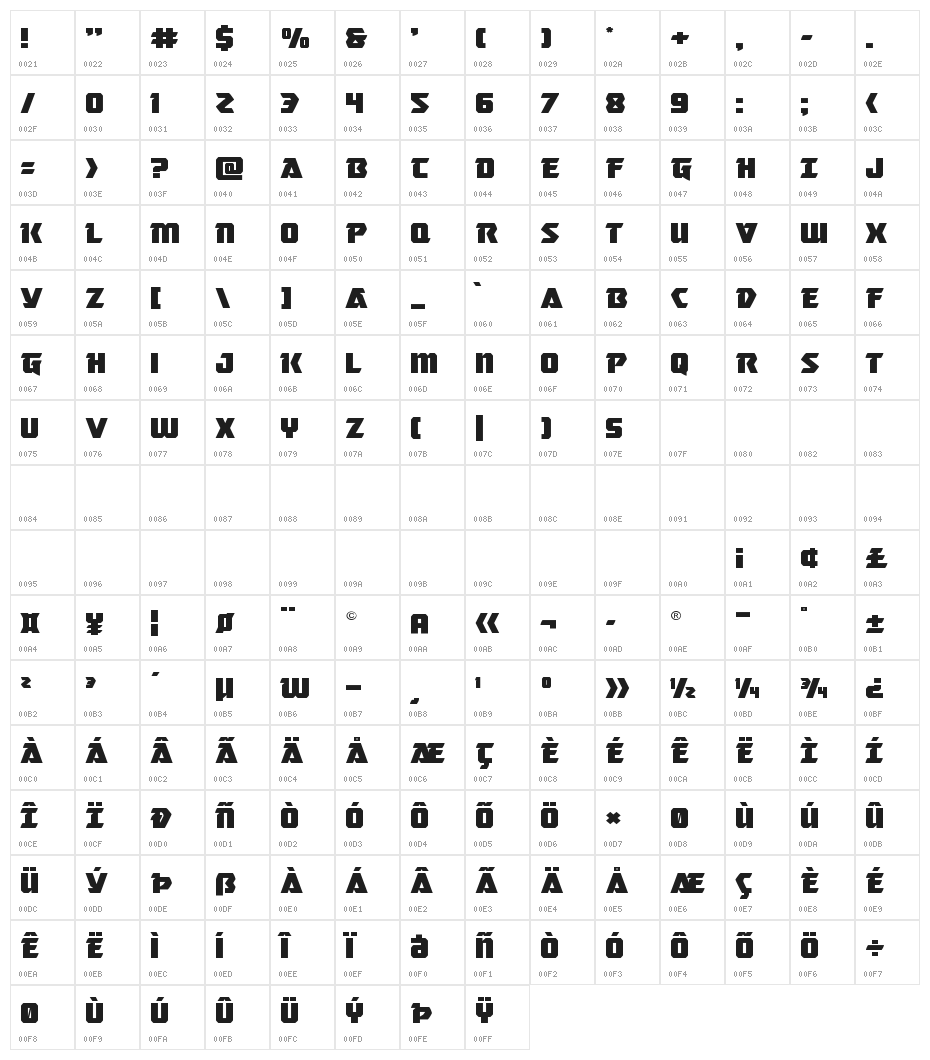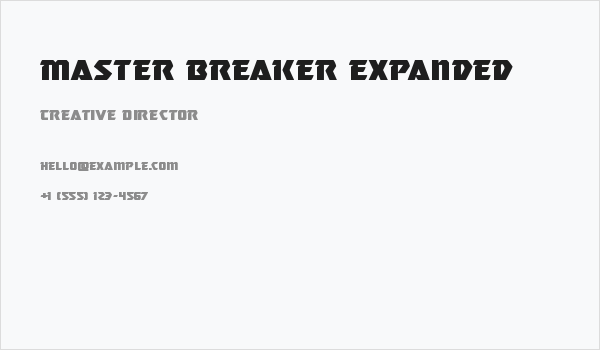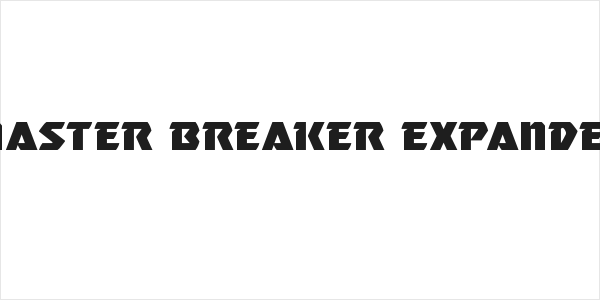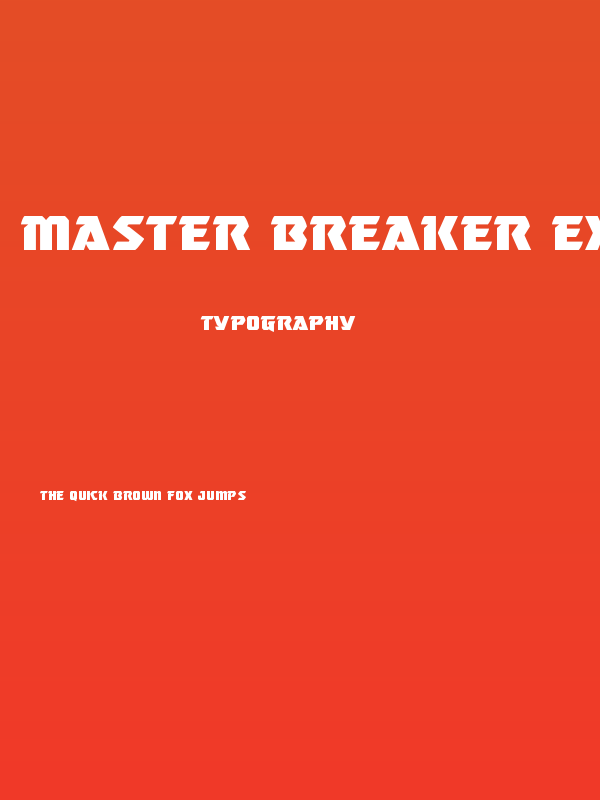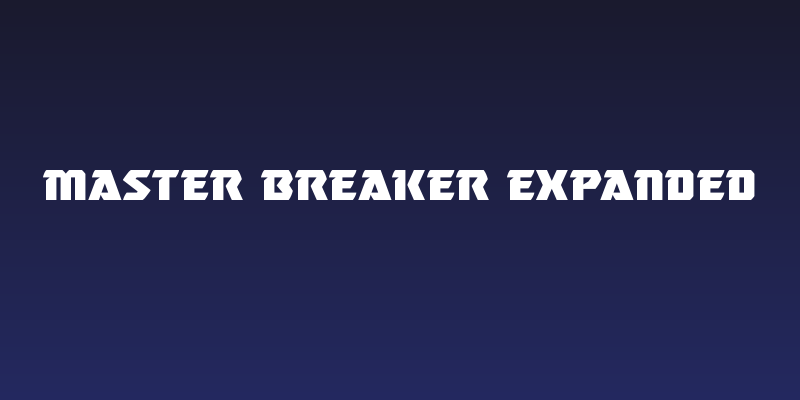
Master Breaker Expanded Font
Master Breaker Expanded Description
This font features a bold and striking design with angular, geometric shapes that create a sense of strength and modernity. The characters are uniformly wide, giving a consistent and powerful appearance. The sharp edges and blocky forms make it ideal for attention-grabbing headlines and titles. Its expanded width enhances its presence, making it suitable for impactful designs. The font maintains a uniform stroke thickness, providing a cohesive and balanced look across all characters. Its unique style is both futuristic and industrial, making it versatile for various creative projects.
| Proposed Projects | Ideal for branding, posters, video game titles, and any project requiring a strong, modern aesthetic. |